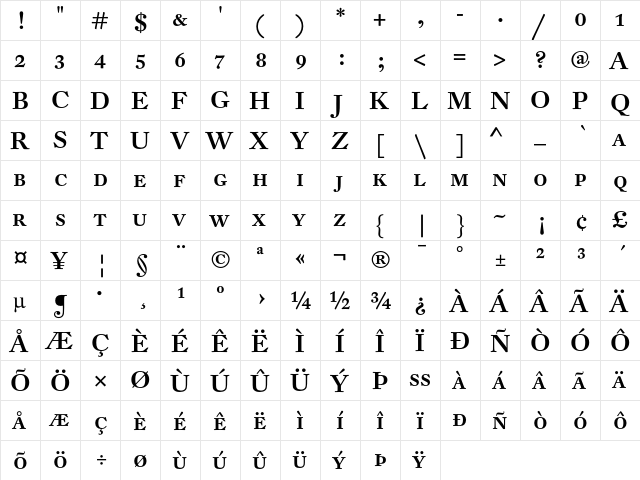
DTL Fleischmann D Caps Medium
Design Context for DTL Fleischmann Typeface
DTL Fleischmann takes a measured approach to typography — its balanced proportions and neutral character make it a reliable workhorse for both digital and print work.